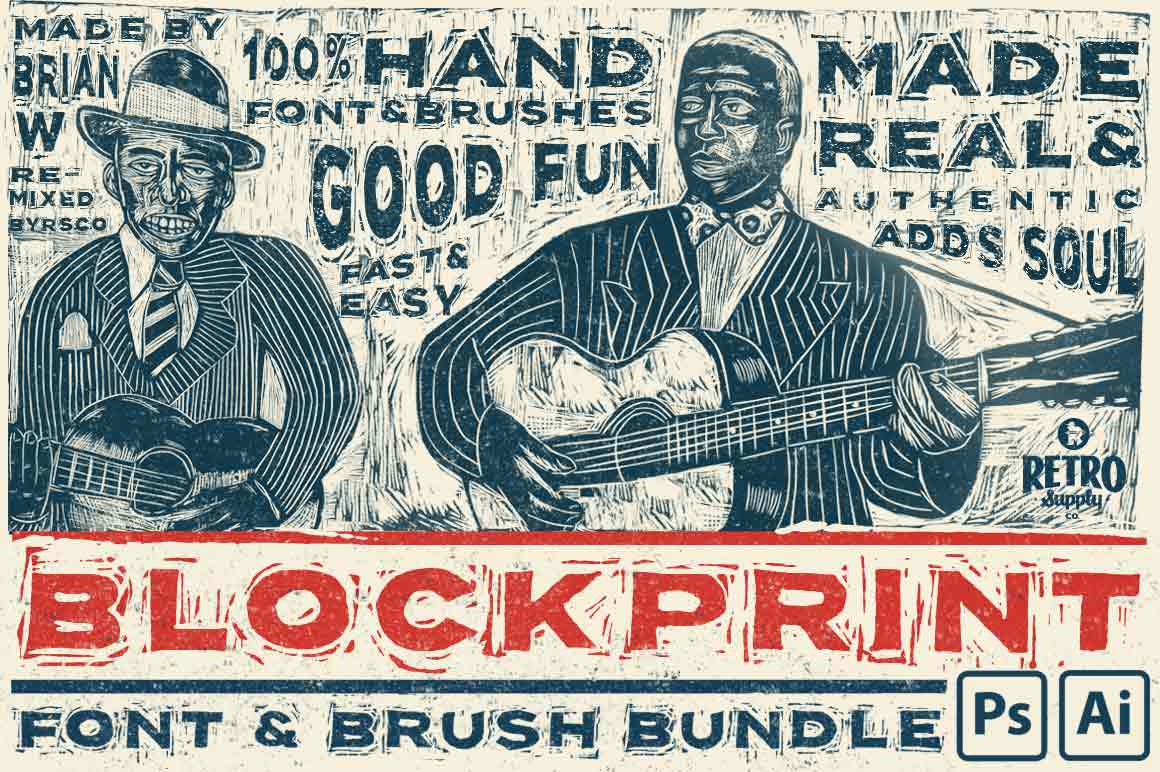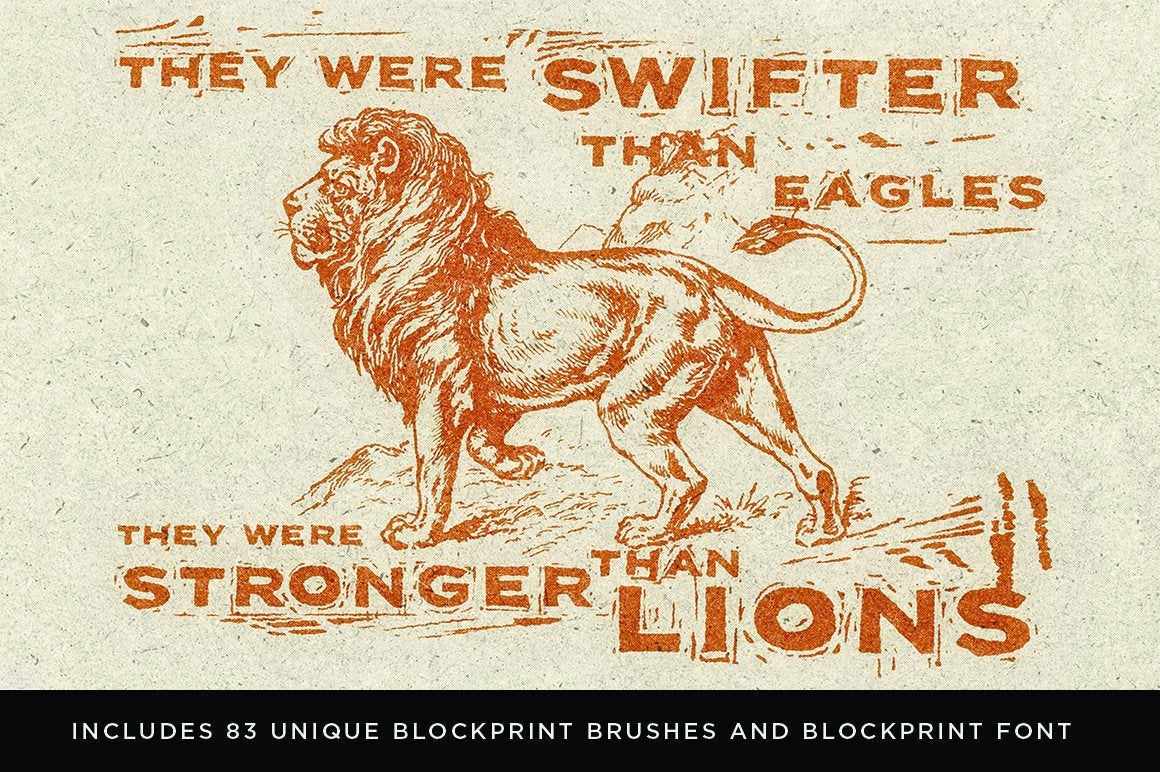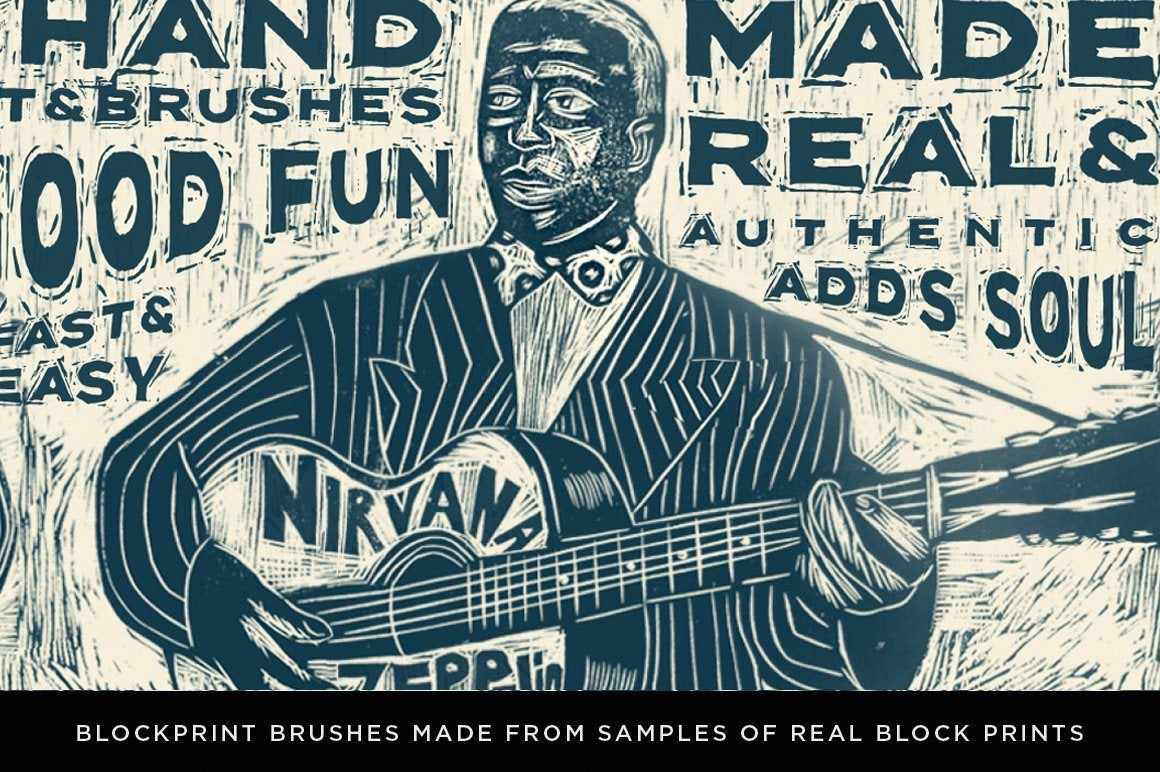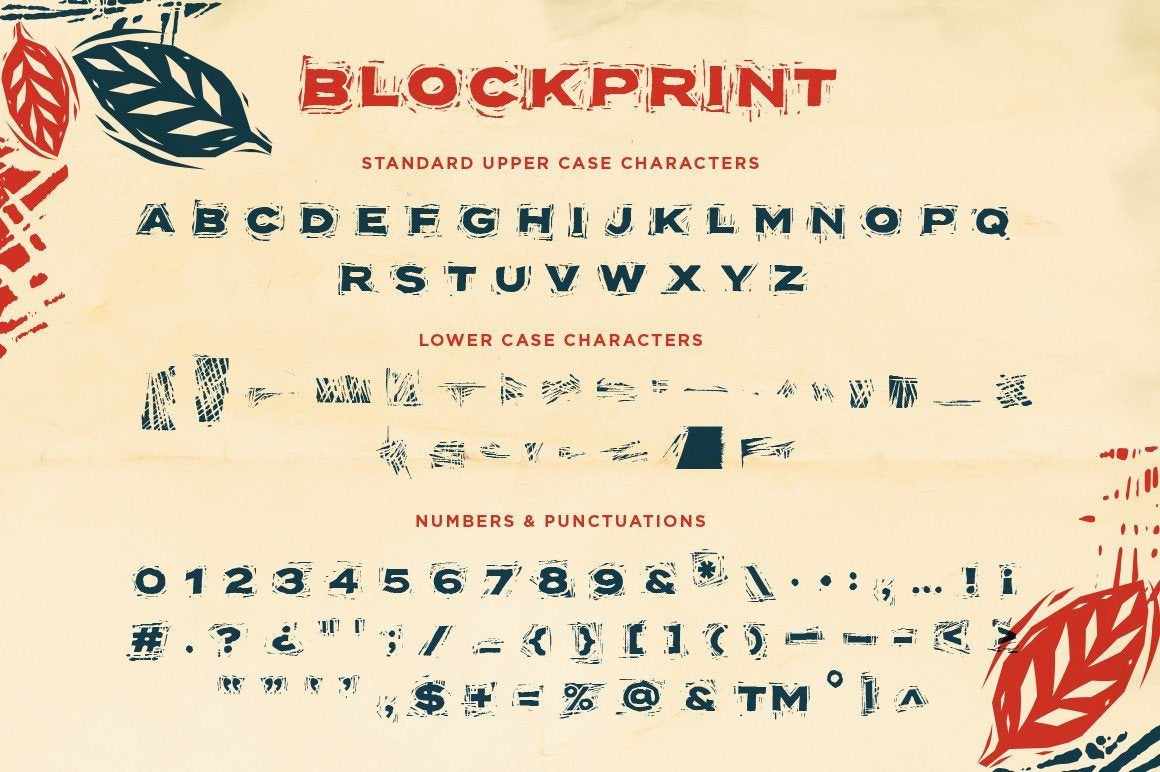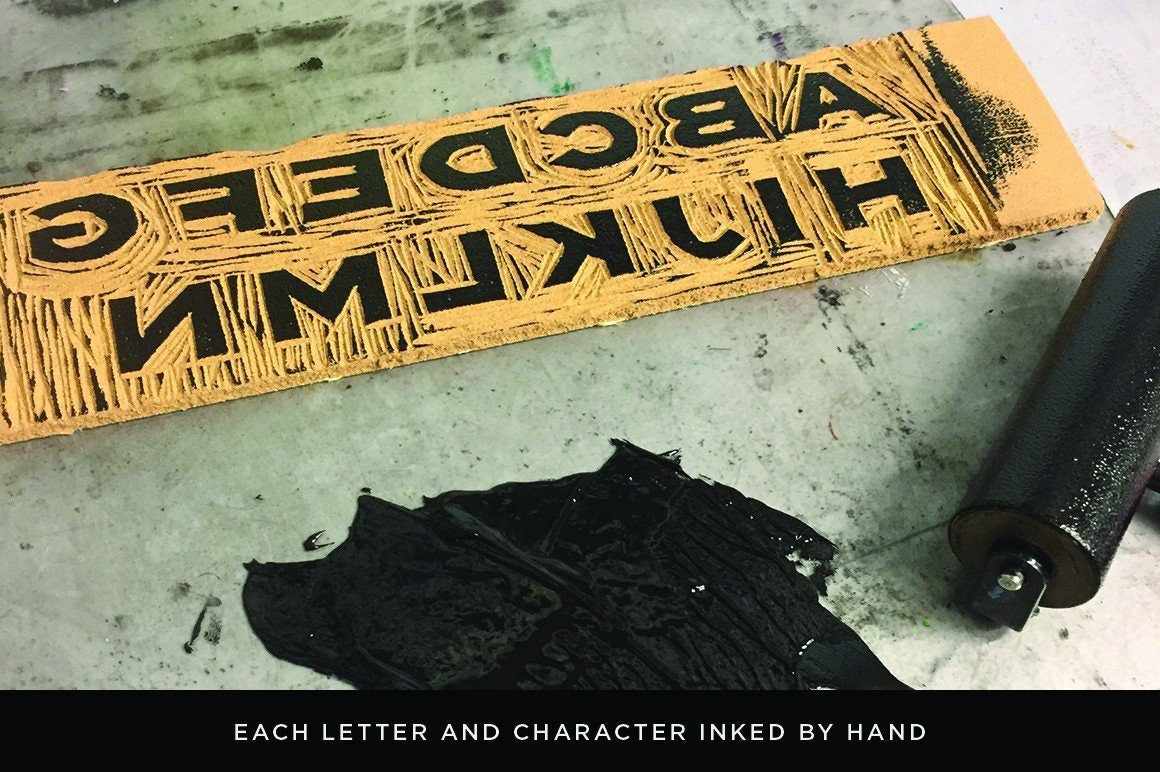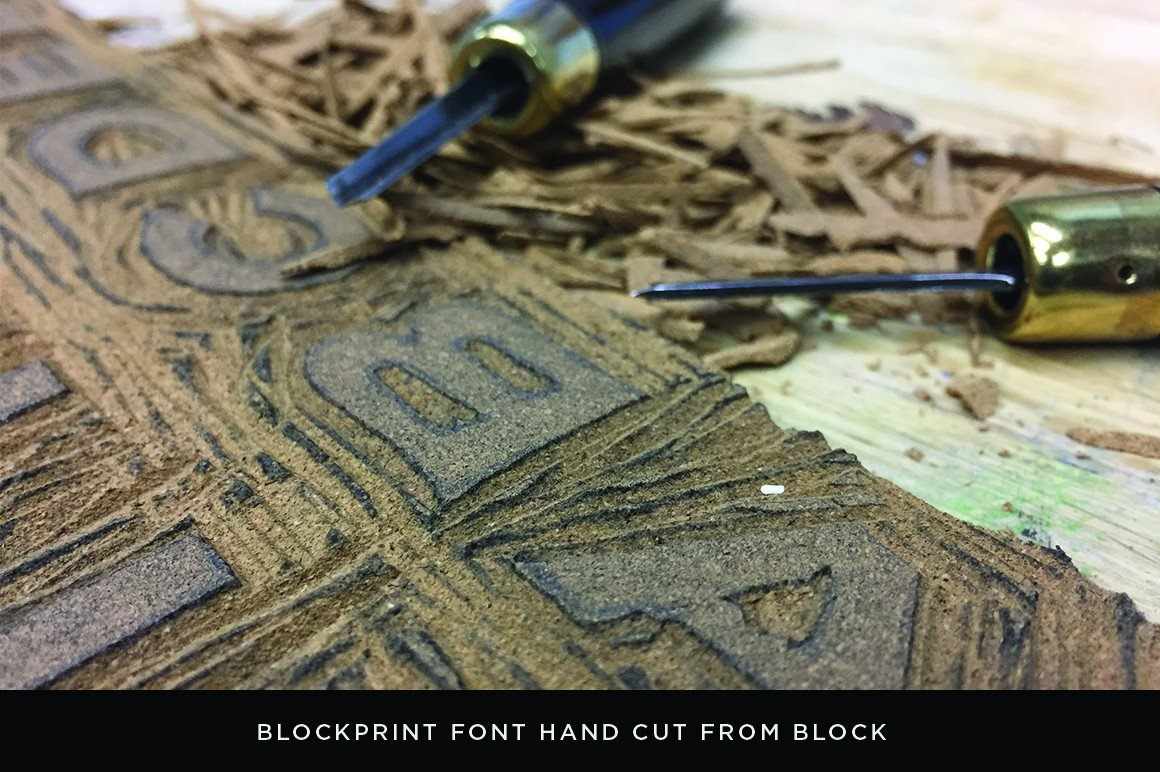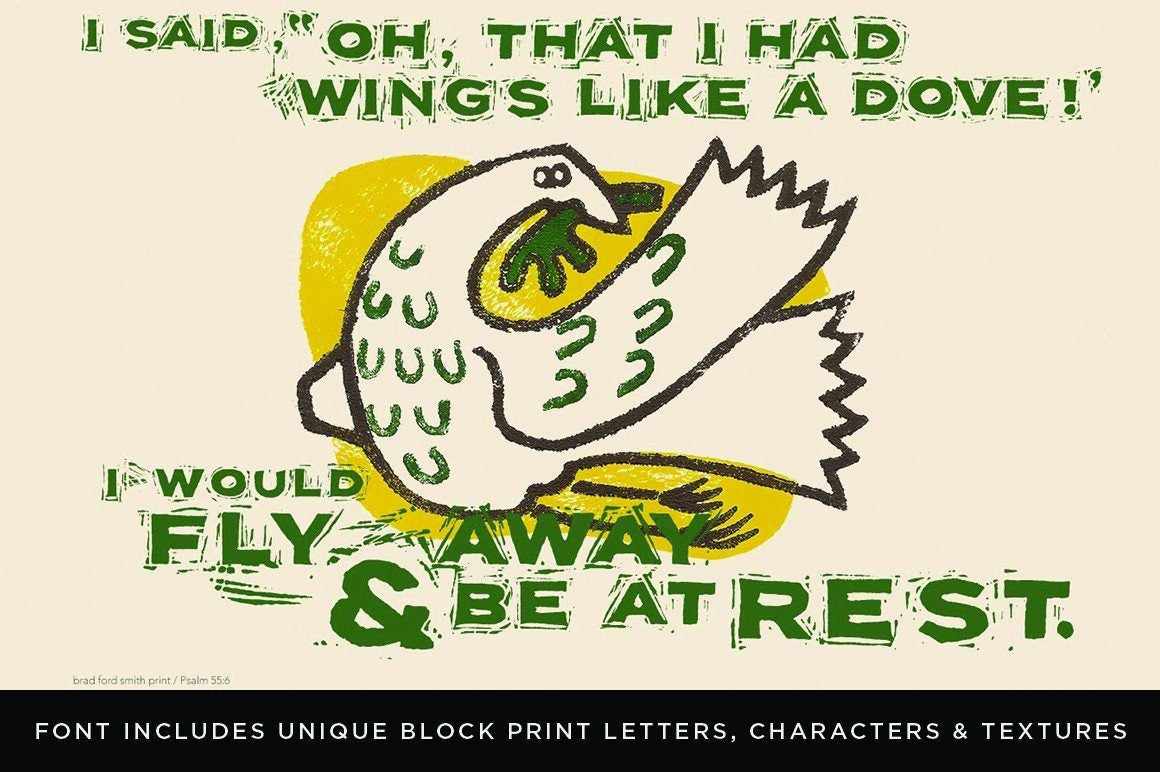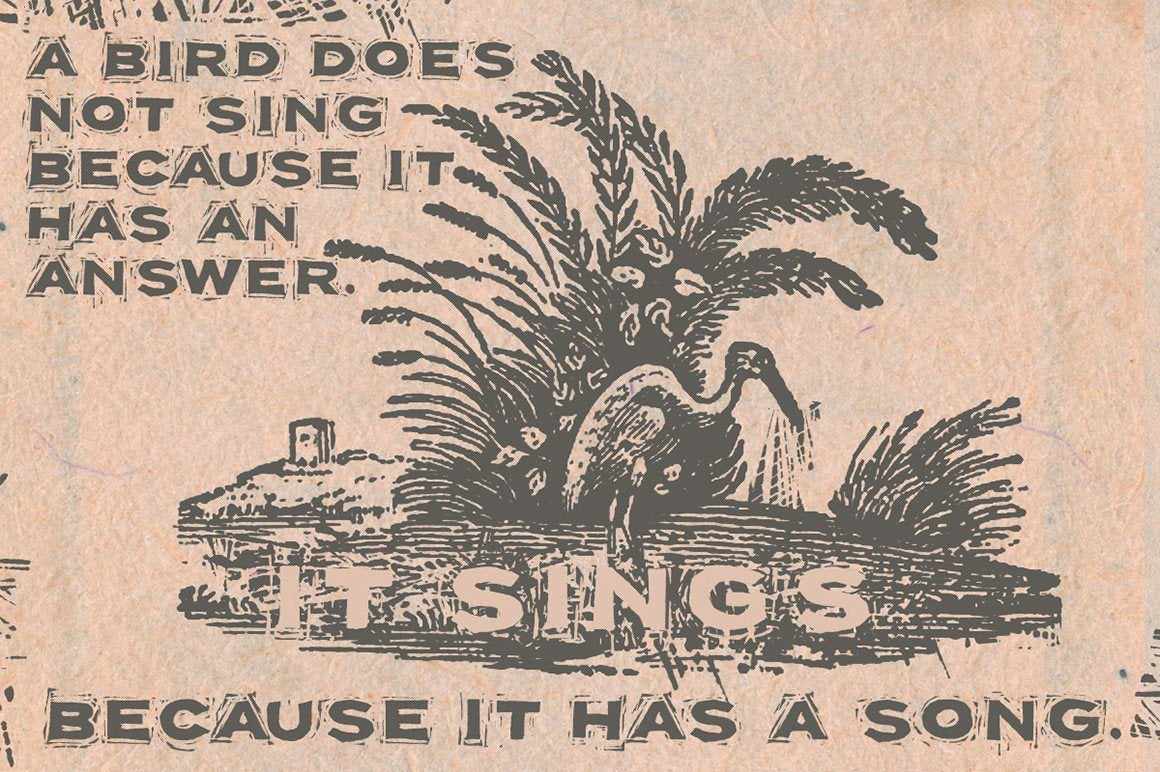
Create authentic block print style effects in Photoshop and Illustrator with this collection of brushes and a handy font, all created from a real hand cut block print.
• 1 Blockprint Font made from a real hand cut block print
• 26 Blockprint Font Standard Characters
• 55 Blockprint Font Number & Punctuation Characters
Add an Authentic Block Print Style to Your Work
We teamed up with linocut fanatic Brian White to bring you a pack that is oozing with authentic texture and real hand cut style.
Take a look at the preview images and you'll see that Brian spent countless hours cutting this font and the brushes.
If you want to create authentic block print typography it doesn't get better than this.
• Brian hand cut each letter and character from a wood block, made a print, and scanned the print at high resolution to create the font.
• All of the brushes were created from real block prints from Brian's portfolio.
• The pack includes tons of block print edge lines so you can give just about any font a block print look just by stamping the lines on.
• Brian has spent over 20 years doing linocut work. So you know you're bringing craftsmanship and authority to your work.